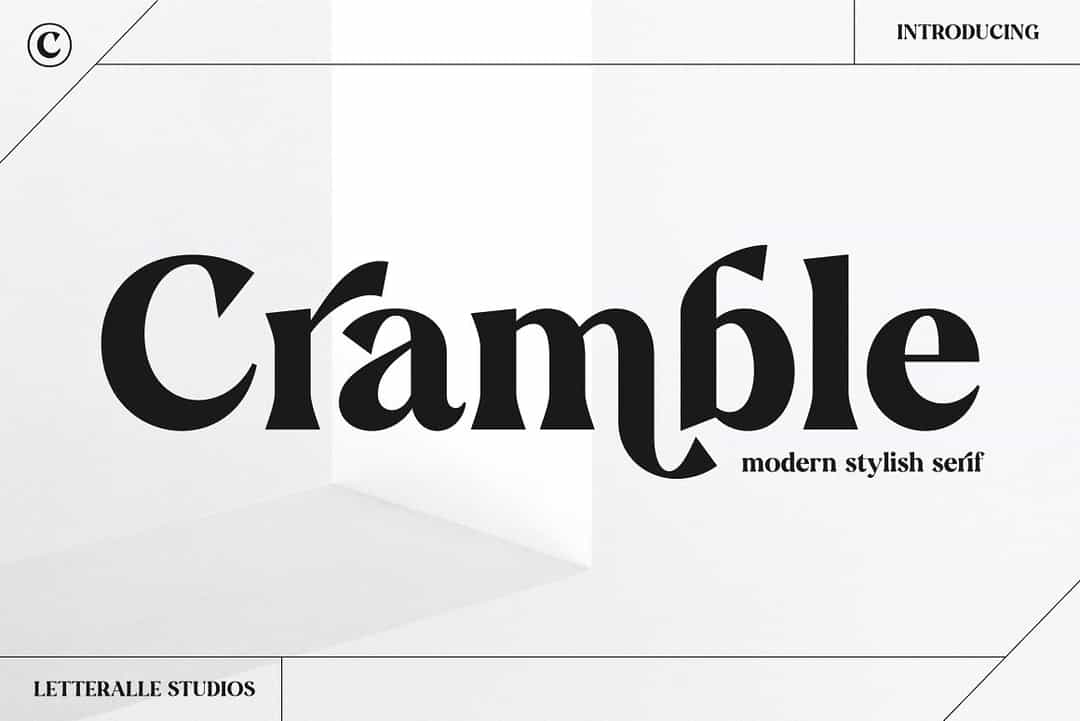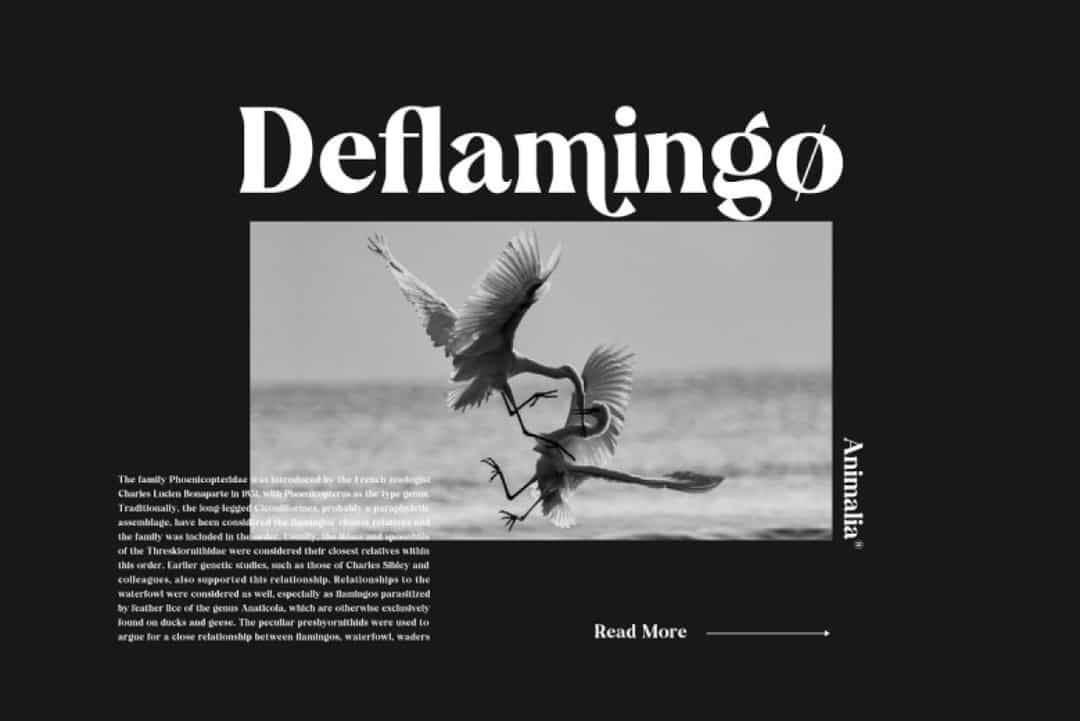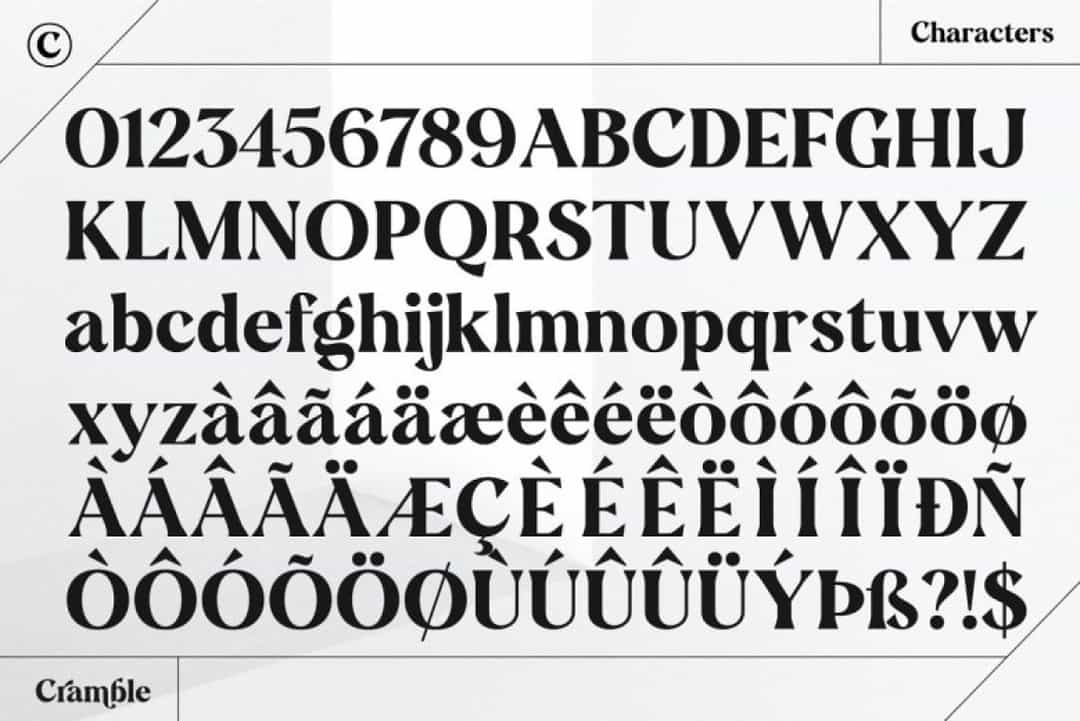
Discover Cramble Font, part of the Serif collection—a versatile and unique font perfect for adding a personal touch to your projects. Download it for free and enjoy crafting designs with style, from invitations to social media posts. This font is available exclusively for personal use, giving you the freedom to create without limits. Unlock your creativity with Cramble Font today!
Cramble font has been designed to bring modernity and sleekness to any modern and sleek environment. Cramble features a clean serif style for an elegant aesthetic, including uppercase characters, punctuation marks, numerals and special characters to demonstrate its distinctiveness.